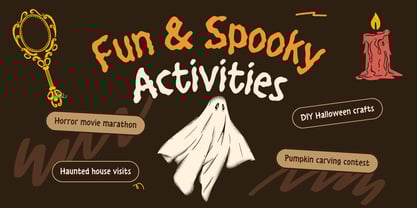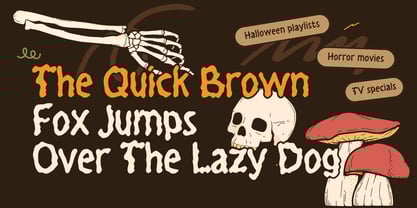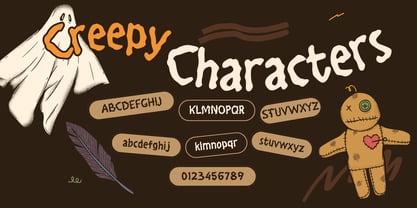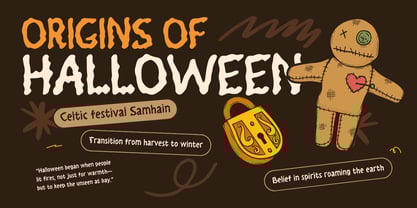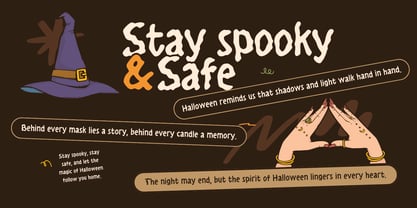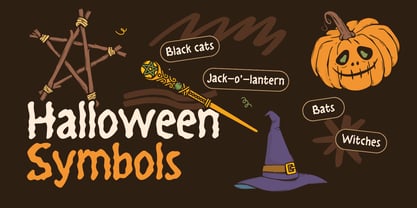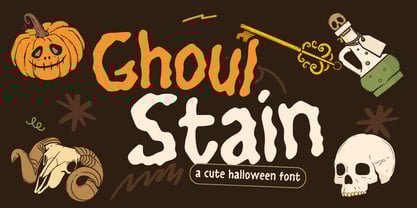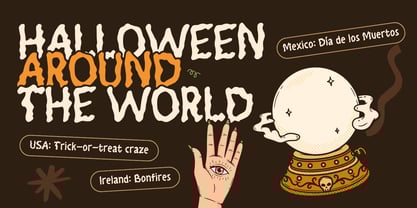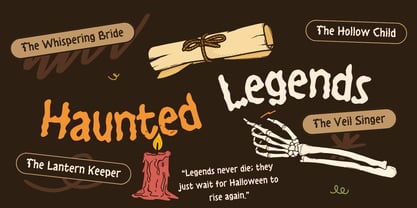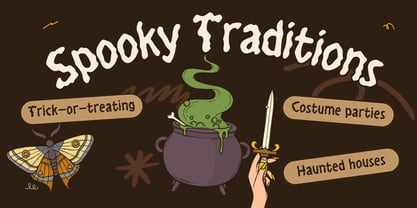
Ghoul Stain
por Beary
La familia tipográfica Ghoul Stain fue diseñada por Dian Haniffan Hadi y publicada por Beary. Ghoul Stain contiene 1 estilos.
Ghoul Stain is an organic horror font with wavy, uneven, and hand-drawn letterforms that look like rotting flesh, ghostly scratches, or monster writing. It has a creepy yet playful vibe—perfect for designs that need a mysterious, eerie, and unsettling atmosphere without being too aggressive. This font works perfectly for Halloween posters, horror movie titles, ghost stories, supernatural games, dark logos, thriller book covers, spooky merchandise, and creepy social media content.
Diseñadores: Dian Haniffan Hadi
Editorial: Beary
Fundición: Beary